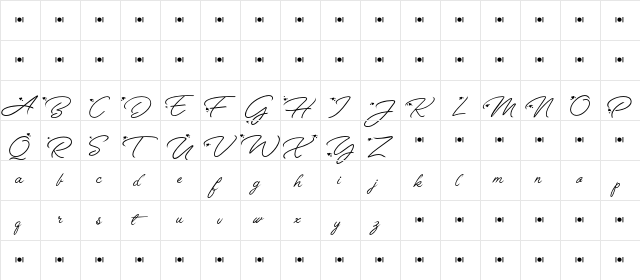
Anggrek by undercoster Regular Font Preview
Anggrek by undercoster Regular
Anggrek by undercoster Regular Font Details
Design Context for Anggrek by undercoster Typeface
Anggrek by undercoster is a composed and adaptable typeface that performs quietly and consistently across a wide range of design contexts.